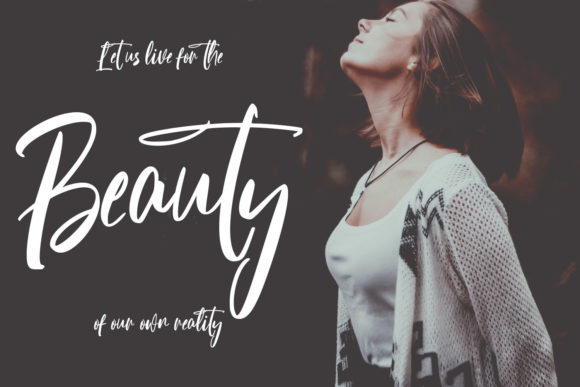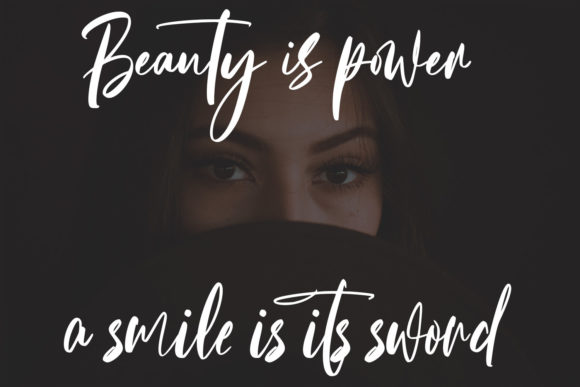
Summit Foxes Font
db-ku.com - Script & Handwritten -- Summit Foxes is a stunning and personalized handwritten font. Whatever the topic, this casual font will be a wonderful asset to your font library, as it has the potential to enhance any creation.